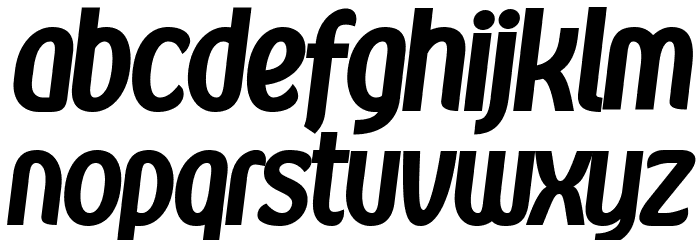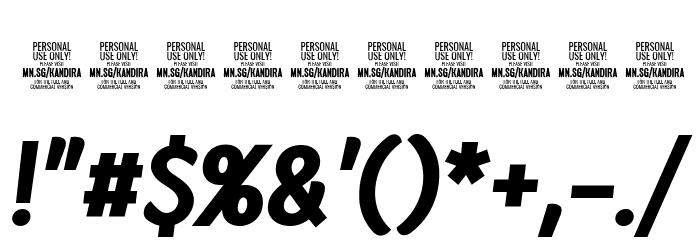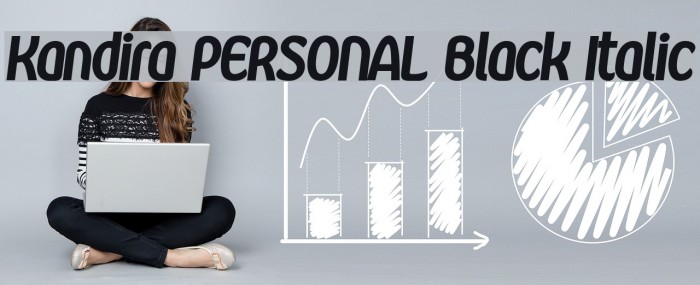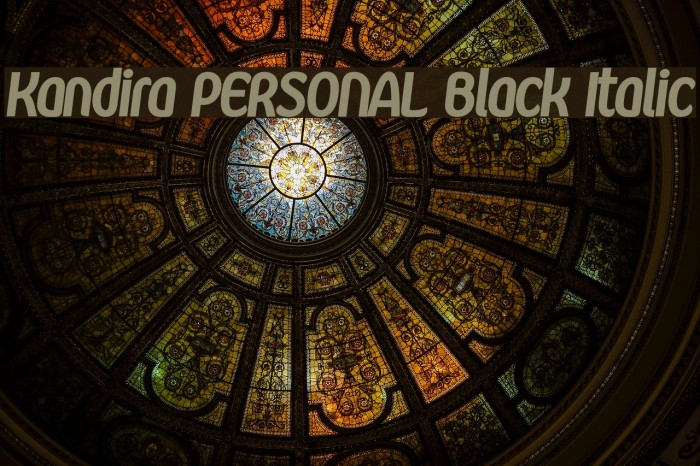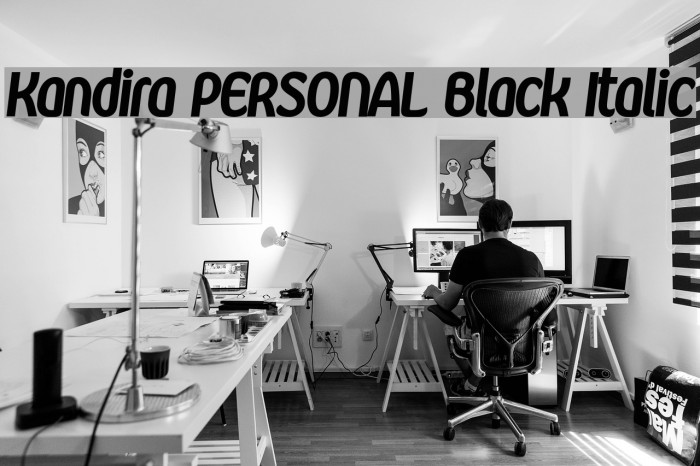
Kandira PERSONAL Black Italic Font
This font features a bold and dynamic style with a strong italic slant, giving it a sense of motion and energy. The characters are thick and robust, providing a powerful presence that commands attention. The uppercase and lowercase letters maintain a consistent width, ensuring uniformity across the text. The numerals and special characters are designed to match the boldness of the alphabet, making them stand out effectively. This font's overall appearance is modern and sleek, suitable for making a bold statement in any design.
A bold, italic font with a modern and dynamic style.
- Proposed Projects: Ideal for headlines, posters, branding, and advertising where a strong, impactful font is needed.